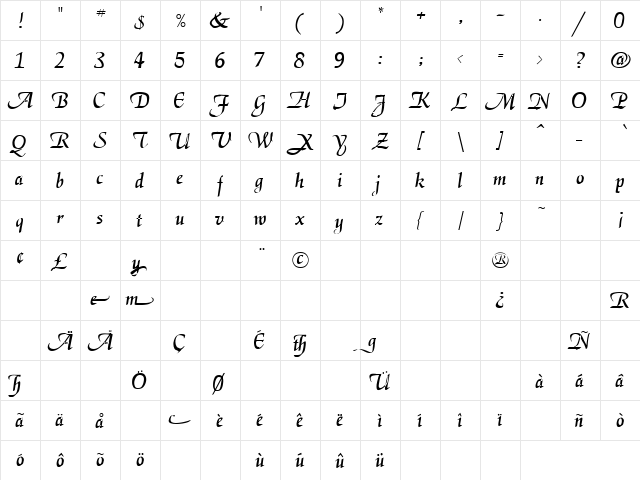
Life Sentence 5 Regular Font Preview
Life Sentence 5 Regular
Life Sentence 5 Regular Font Details
Design Context for Life Sentence 5 Typeface
Life Sentence 5 is a composed and adaptable typeface that performs quietly and consistently across a wide range of design contexts.